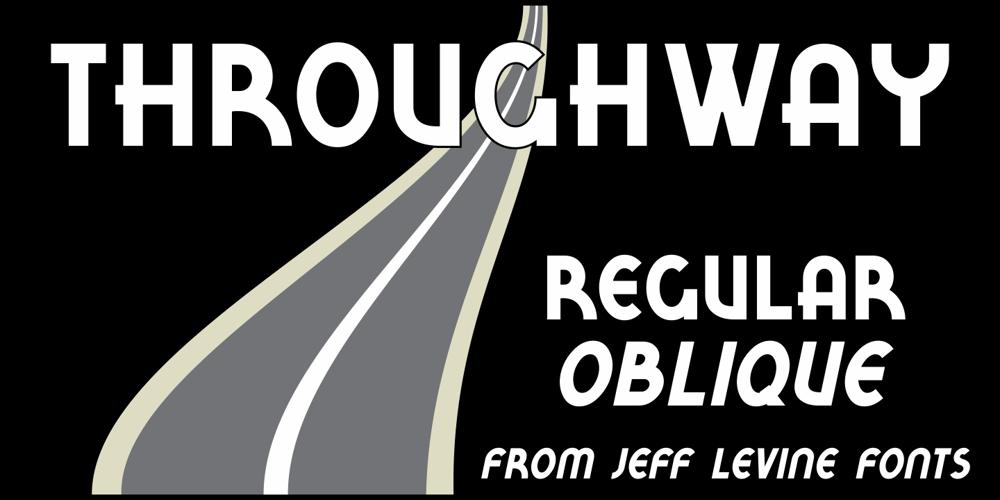
Throughway JNL Font Family was designed by Jeff Levine and published by Jeff Levine. Throughway JNL contains 2 styles and family package options. From the pages of a small book entitled “A Portfolio of Alphabet Designs for Artists, Architects, Designers & Craftsmen” [Irene K. Ames, 1938] comes a bold Art Deco sans poster display face.The digital version is called Throughway JNL, and is available in both regular and oblique versions.[To note, throughway (or sometimes spelled thruway) is a popular term from the 1950s and 1960s for a major road or highway.]